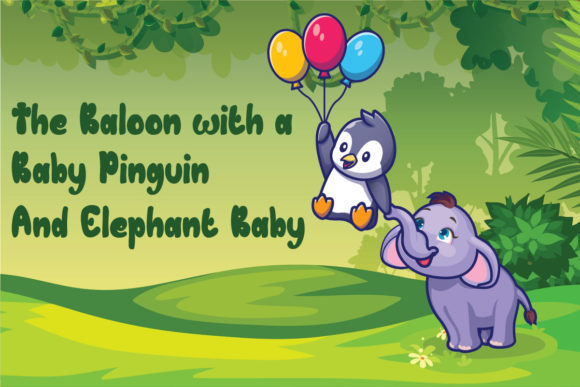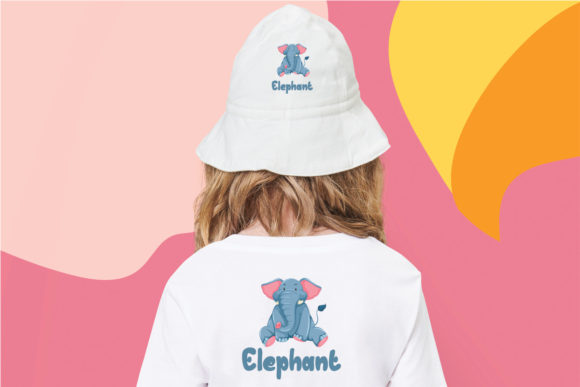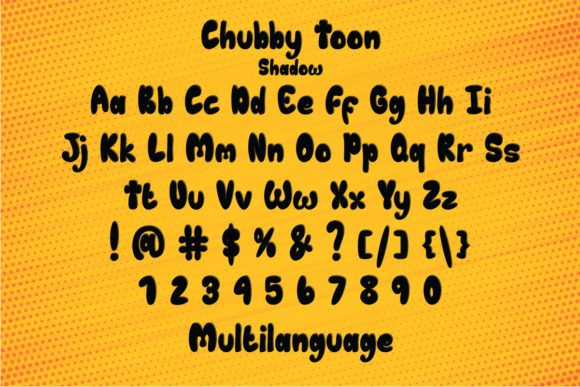
Introducing Chubby Toon Font: The Perfect Choice for Playful Designs
Are you looking for a font that embodies playfulness and authenticity? Look no further than Chubby Toon Font! This adorable display font is perfect for any children’s activity or school project that requires a fun and bubbly touch. In this article, we’ll dive into the world of Chubby Toon Font and explore its features, uses, and benefits for designers and crafters.
What is Chubby Toon Font?
Chubby Toon Font is a cute and bubbly display font designed to bring a smile to your face. Its playful and authentic style makes it an excellent choice for designs that require a fun and youthful approach. Whether you’re working on a children’s book, a school project, or a craft design, Chubby Toon Font is sure to add a touch of whimsy and charm.
Features of Chubby Toon Font
So, what makes Chubby Toon Font so special? Here are some of its key features:
- Playful and Authentic Style: Chubby Toon Font has a unique and playful style that’s perfect for designs that require a fun and youthful approach.
- Cute and Bubbly: The font’s cute and bubbly design makes it an excellent choice for children’s activities and school projects.
- Display Font: Chubby Toon Font is a display font, making it perfect for headlines, titles, and other display text.
- Easy to Read: Despite its playful style, Chubby Toon Font is easy to read, making it perfect for designs that require a clear and legible font.
Uses of Chubby Toon Font
Chubby Toon Font is a versatile font that can be used in a variety of designs, including:
- Children’s Activities: Chubby Toon Font is perfect for children’s activities, such as coloring books, activity sheets, and educational materials.
- School Projects: The font is also great for school projects, such as posters, presentations, and reports.
- Craft Designs: Chubby Toon Font can be used in craft designs, such as card making, scrapbooking, and DIY projects.
- Digital Designs: The font can also be used in digital designs, such as social media graphics, blog posts, and website headers.
Benefits of Using Chubby Toon Font
So, why should you use Chubby Toon Font in your designs? Here are some benefits:
- Adds a Touch of Whimsy: Chubby Toon Font adds a touch of whimsy and charm to your designs, making them more engaging and fun.
- Perfect for Kids: The font is perfect for designs that require a kid-friendly approach, making it an excellent choice for children’s activities and school projects.
- Versatile: The font is versatile and can be used in a variety of designs, from digital designs to craft projects.
Tips for Using Chubby Toon Font
Here are some tips for using Chubby Toon Font in your designs:
- Use it for Headlines: Chubby Toon Font is perfect for headlines and titles, making it an excellent choice for display text.
- Pair it with Other Fonts: You can pair Chubby Toon Font with other fonts to create a unique and interesting design.
- Experiment with Colors: Chubby Toon Font looks great in bright and bold colors, so don’t be afraid to experiment with different colors.
- Use it for Kids’ Designs: The font is perfect for designs that require a kid-friendly approach, making it an excellent choice for children’s activities and school projects.
In conclusion, Chubby Toon Font is a cute and bubbly display font that’s perfect for designs that require a playful and authentic approach. Its features, uses, and benefits make it an excellent choice for designers and crafters who want to add a touch of whimsy and charm to their designs. Whether you’re working on a children’s activity, a school project, or a craft design, Chubby Toon Font is sure to be a great choice.